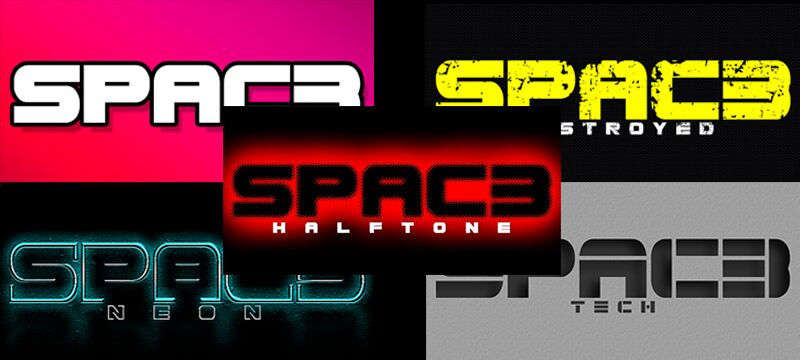
Spac3 Halftone by Carlos Matteoli is a free futuristic display font with broad, tightly fitted capitals and clipped, octagonal curves. Small horizontal cutouts and a dense halftone texture give the lettering the look of industrial panels seen through a coarse screen.
Designers working in gaming, electronic music, or science-fiction entertainment can use it for title cards, event posters, and merchandise. The slotted details let words function like interface graphics in projects featuring spacecraft, machinery, or retro arcade imagery.